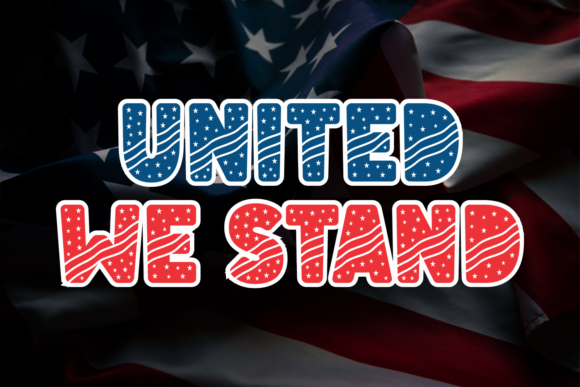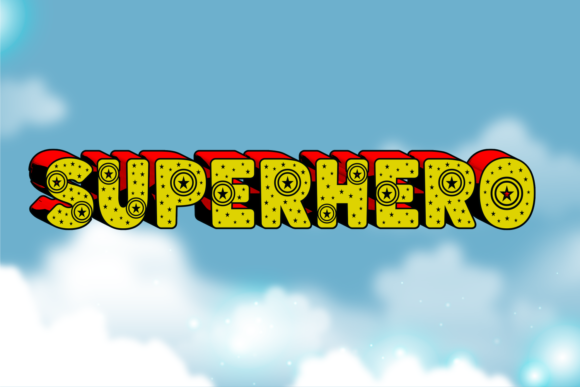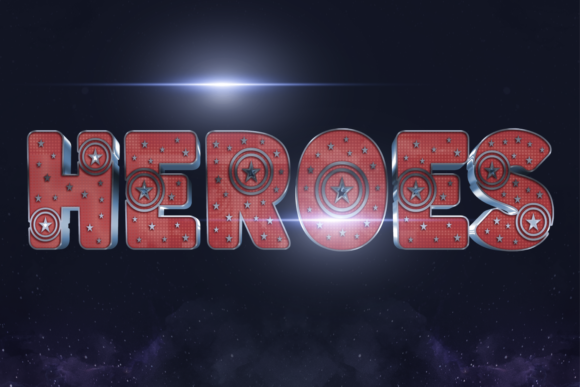
The Star-Spangled Designer: Meet Captain Strong Font
Ah, the quest for the perfect font! It’s a design dilemma we’ve all faced at some point. I recall working on a 4th of July-themed project for a client, and the pressure was on to find a font that screamed “American pride” without being too cheesy. That’s when I stumbled upon Captain Strong Font, a beautiful decorative font that instantly transported me to the stars and stripes of the American flag.
As I explored its features, I knew I had to share it with fellow designers, crafters, and creative hobbyists. So, let’s dive into the wonderful world of Captain Strong Font!
- ✨ Patriotic charm: Captain Strong Font is inspired by the American flag, making it perfect for 4th of July-themed projects, American-themed cards, and holiday decorations.
- ✅ Elegant design: The font features uppercase letters and numbers decorated with stars and stripes, giving it a sophisticated and eye-catching look.
- 🎉 Versatility: Use it for quotes, movie titles, book covers, posters, and more – the possibilities are endless!
- 🤔 Limited character set: As a decorative font, Captain Strong Font might not have the entire range of characters you need for a project. Be sure to check the character set before committing to it.
- ⚠️ Legibility at small sizes: Due to its decorative nature, the font might become less legible at smaller font sizes. Use it at larger sizes or for headlines to ensure maximum impact.
- Experiment with the font’s OpenType features, such as glyphs and stylistic alternates, to add more flair to your design.
The Designer Inspiration Behind Captain Strong Font
Captain Strong Font was designed with the American spirit in mind. The font’s creator drew inspiration from the stars and stripes of the American flag, aiming to capture the essence of American pride and patriotism. The result is a font that’s both elegant and bold, perfect for projects that require a touch of Americana.
Q: What type of projects is Captain Strong Font best suited for?
A: Captain Strong Font is perfect for American-themed cards, holiday decorations, quotes, movie titles, book covers, posters, and more!
Q: Is Captain Strong Font available in different styles or variations?
A: Currently, Captain Strong Font is available as a single font style, but its OpenType features, glyphs, and stylistic alternates offer a range of creative possibilities.